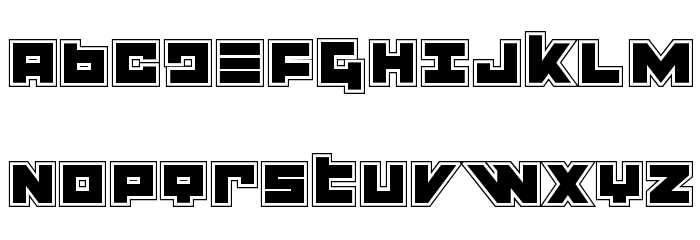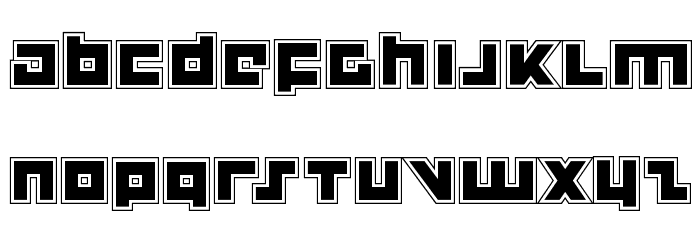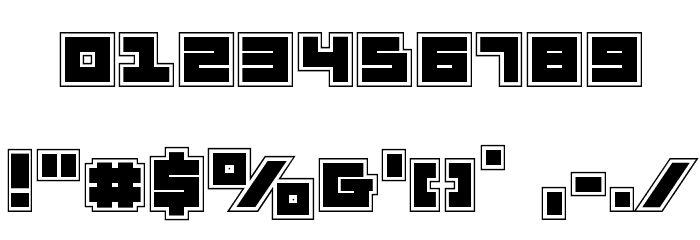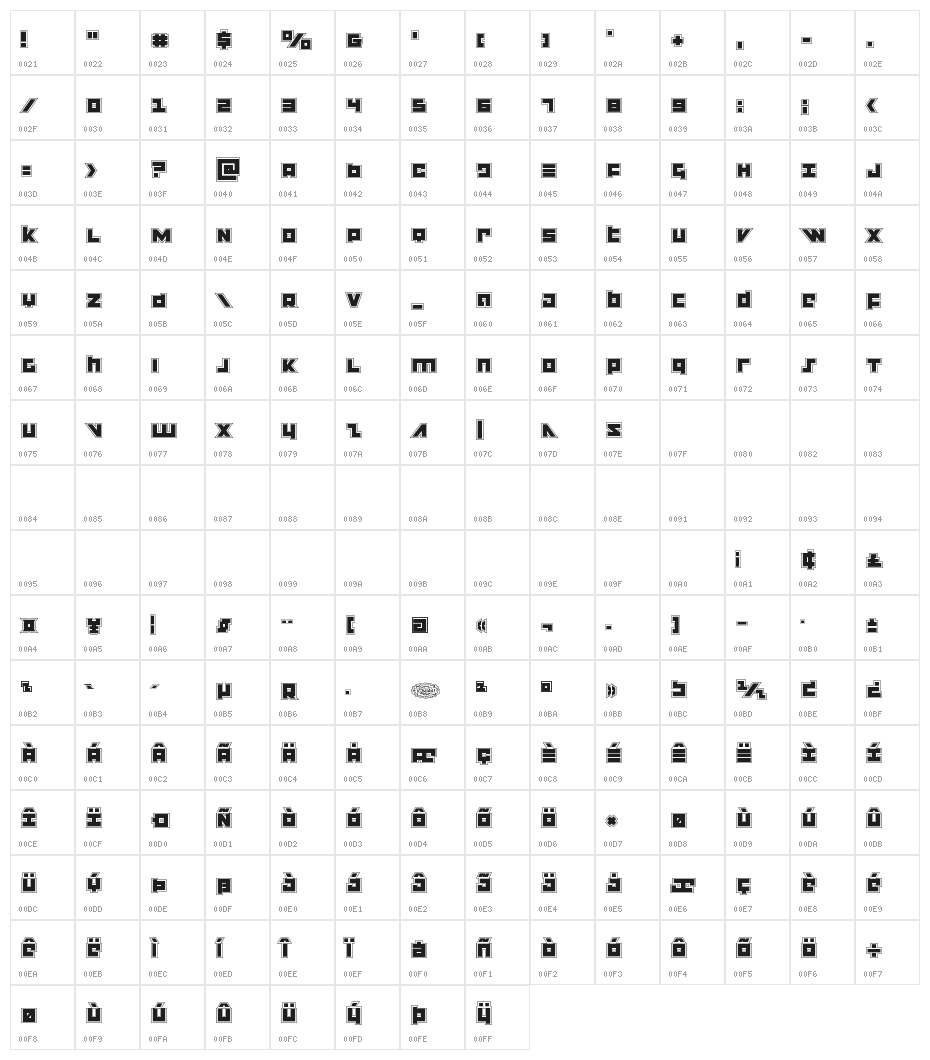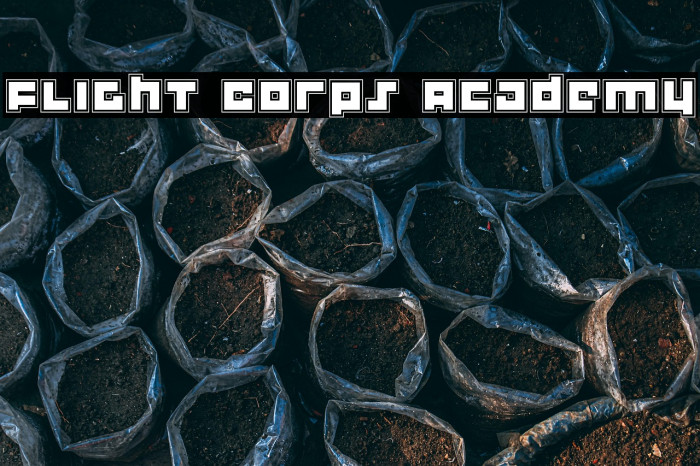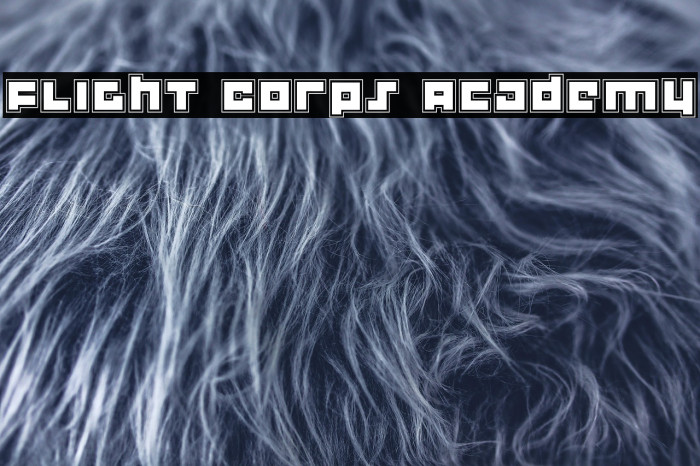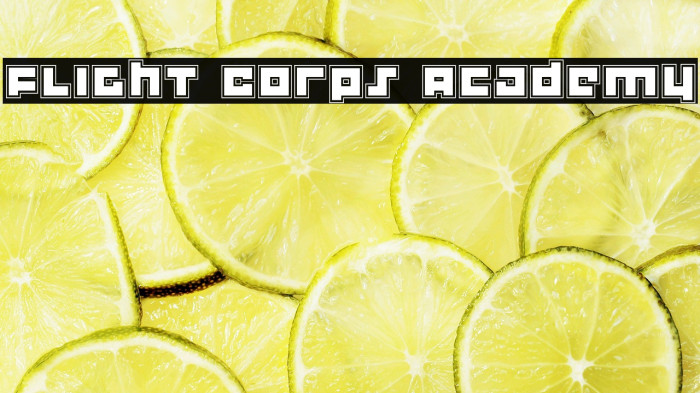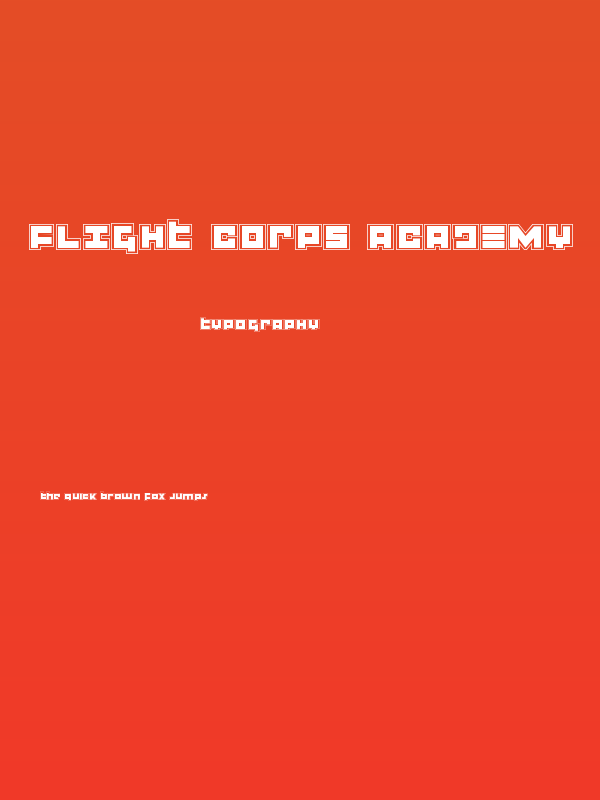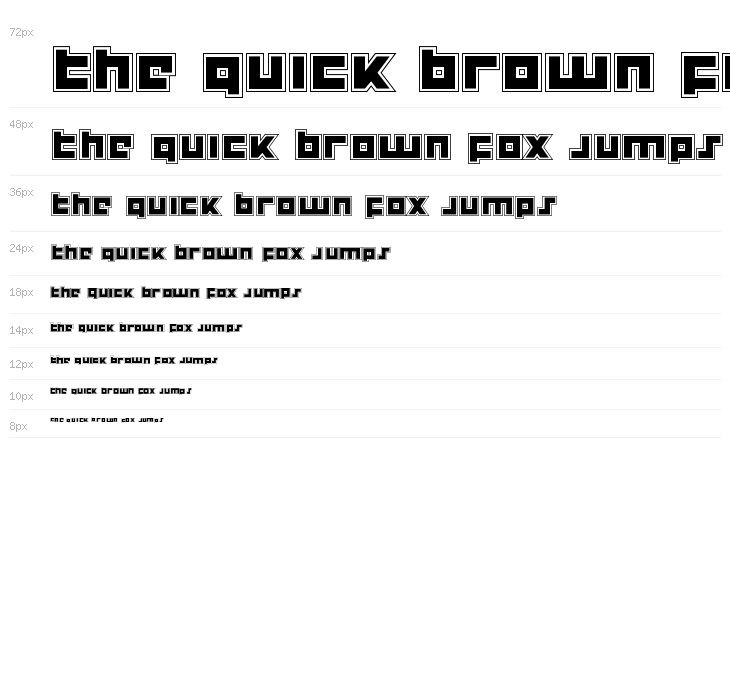
Flight Corps Academy Font
This font features a bold, geometric design with a strong, futuristic aesthetic. The characters are constructed with thick, blocky lines and sharp angles, giving them a distinct, tech-inspired appearance. The uppercase and lowercase letters maintain a consistent style, with a uniform height and width that enhances the font's cohesive look. The numerals and special characters are designed to match the boldness and angularity of the alphabet, ensuring a seamless integration across all text elements. The font's outline adds an extra layer of depth, making it stand out in any design context.
A bold, geometric font with a futuristic, tech-inspired design.
- Proposed Projects: Ideal for sci-fi themed projects, video game titles, tech company logos, and futuristic posters.
- Overall Style: Futuristic